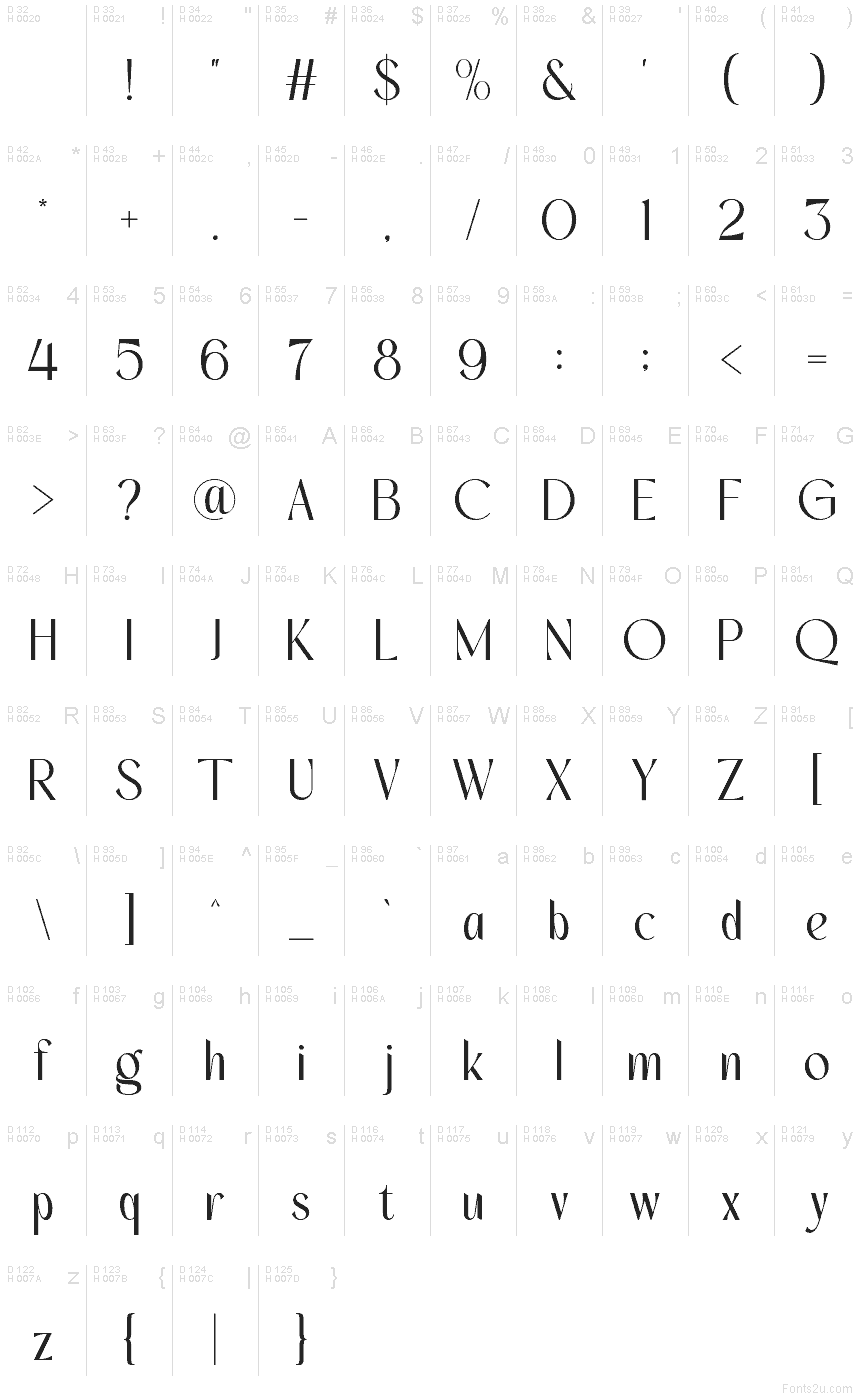
Rodane Regular
Rodane font by Ermedia Studio is a free high-contrast display serif font. Its defining move is the blade-like taper: thick, inky stems sliced into razor-thin hairlines, with elegant curves that feel sculpted rather than drawn. The result is a glossy, editorial rhythm—sharp, modern, and just a touch decadent—making letterforms that catch light like cut metal.
Using Rodane, headlines land with couture polish while staying readable at a glance. This free font shines on fashion branding, editorial headlines, cosmetics packaging, lookbooks, luxury invitations, posters, and boutique logos. Set it large to let those hairlines breathe, and pair with a neutral sans for body copy to keep the spotlight on Rodane’s gleaming contrast.